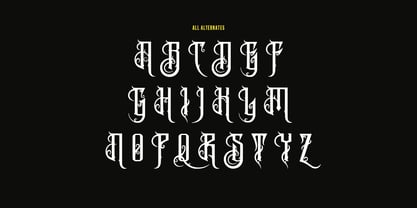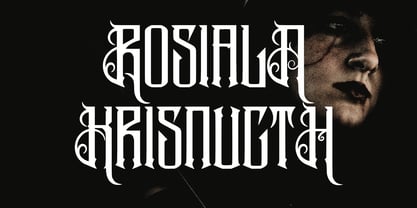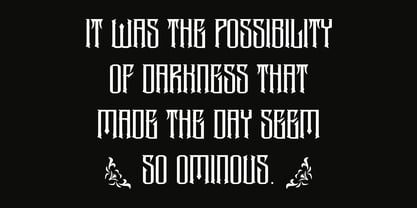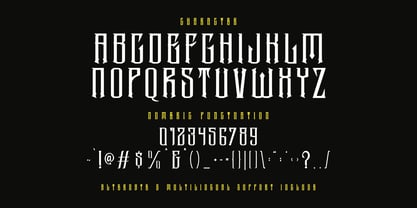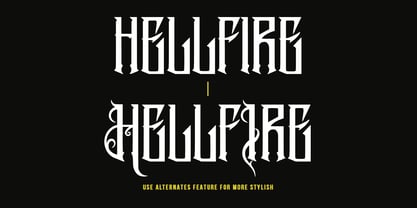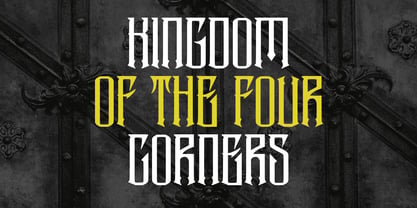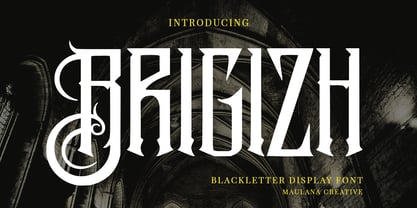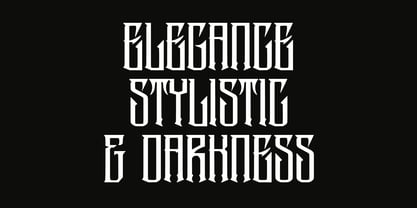
MC Brigizh
by Maulana Creative
The MC Brigizh Font Family was designed by Gilang Maulana and published by Maulana Creative. MC Brigizh contains 1 styles. More about this family
Introducing Brigizh Blackletter Display Font
Brigizh Blackletter Font is a handmade Modern Victorian handlettering, which is combining modern and classic typography with some awesome alternates. Yes we back to early 1800s, bring classic touch on this decade.